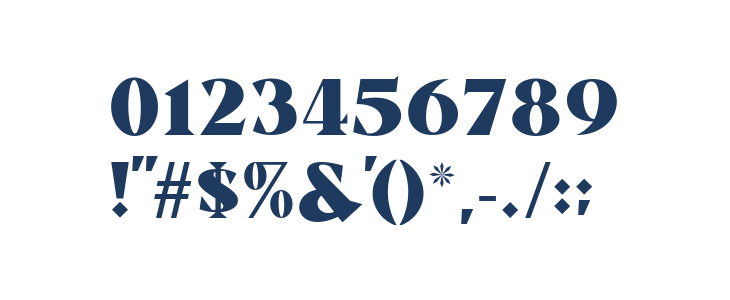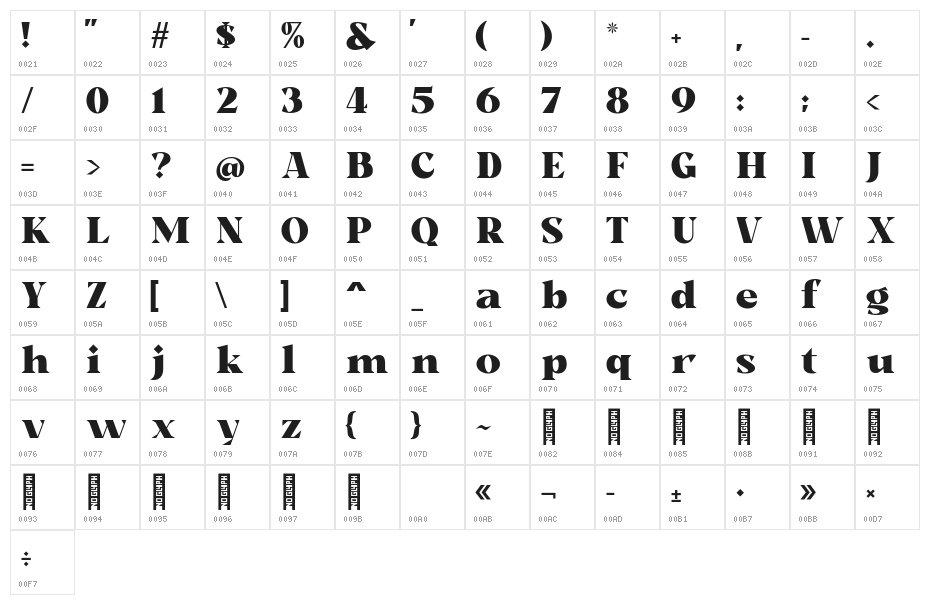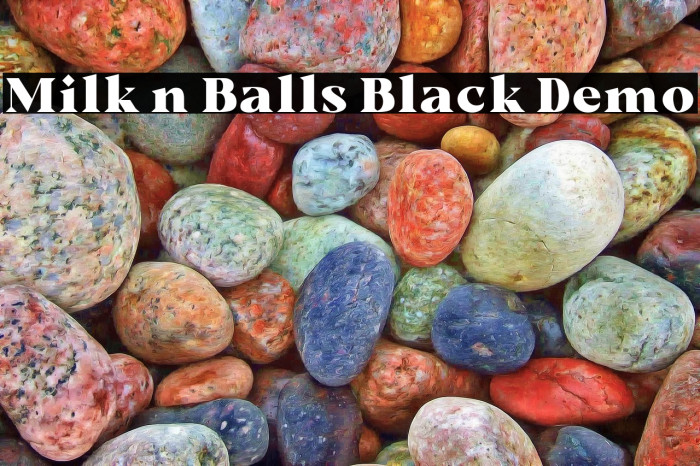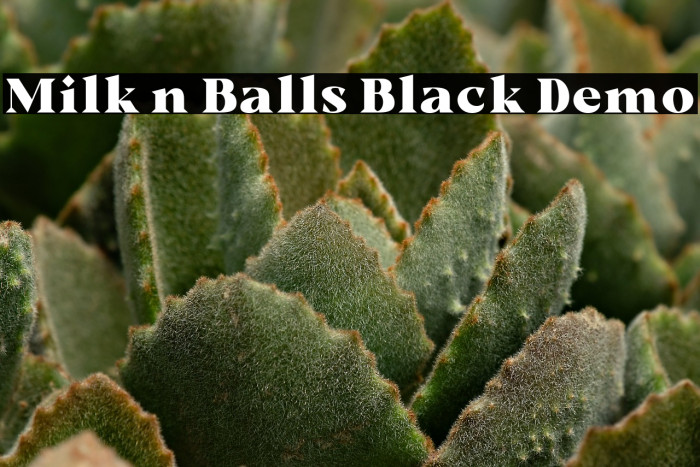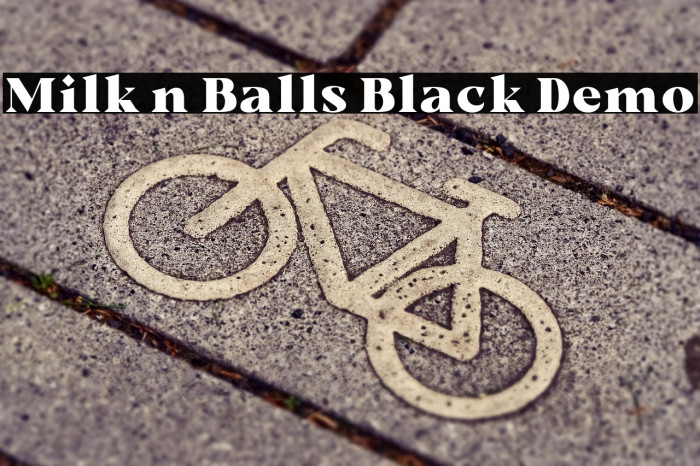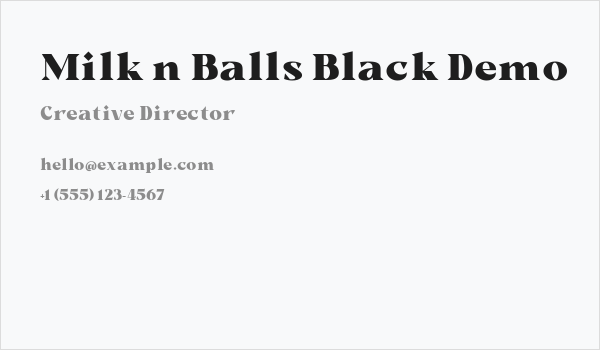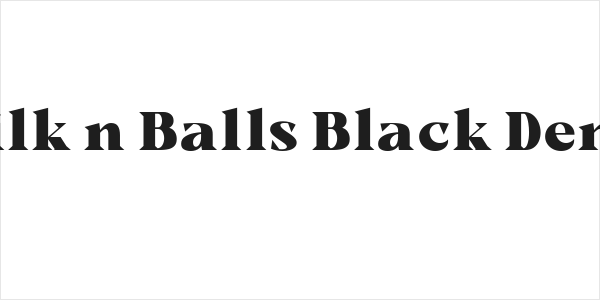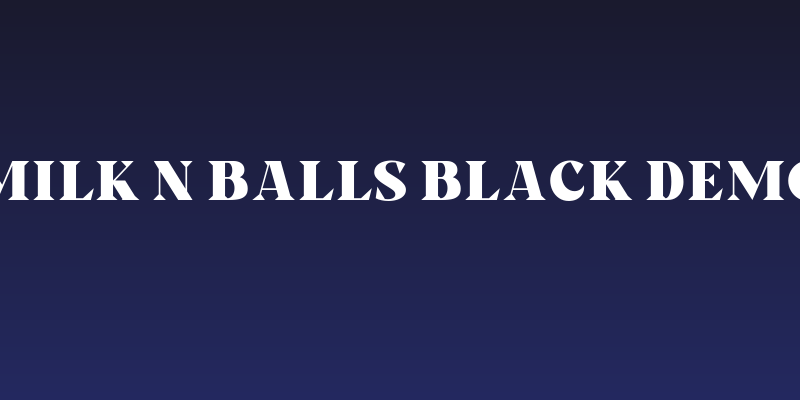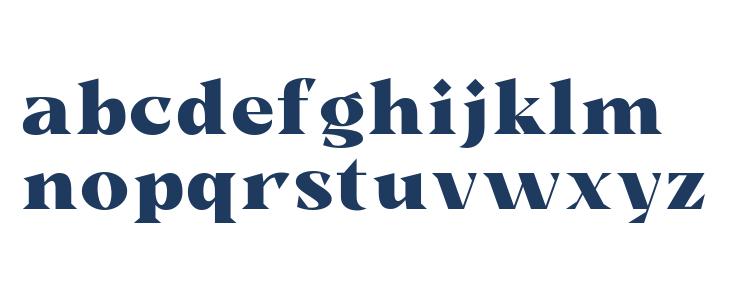
Milk n Balls Black Demo Font
Milk n Balls Black Demo Description
This font features bold, dramatic serifs with a strong presence, making it ideal for impactful designs. The uppercase letters are robust and commanding, while the lowercase letters maintain a consistent weight, offering a harmonious balance. The numerals are equally bold, ensuring they stand out in any context. Special characters are designed with the same attention to detail, providing a cohesive look across all glyphs. The overall style is modern with a touch of classic elegance, suitable for a variety of design projects that require a bold statement.
| Proposed Projects | Ideal for branding, headlines, posters, and any project requiring a strong visual impact. |